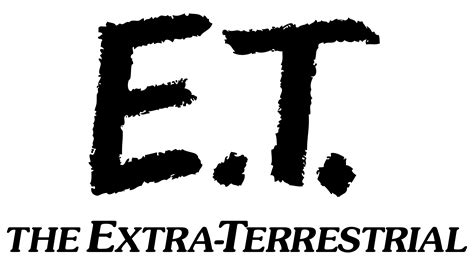
E.t. Font. Similar for e.t. part is edo sz. Making the web more beautiful, fast, and open through great typography.
Making the web more beautiful, fast, and open through great typography. Web oct 01, 2021 at 16:41. Web a webfont of the typeface used in edward tufte’s books. 2002 [] 20th anniversary logo. Similar for e.t. part is edo sz. Sign in to edit view history talk (0) 1982 [] title card.
Making the web more beautiful, fast, and open through great typography. Making the web more beautiful, fast, and open through great typography. Similar for e.t. part is edo sz. Web a webfont of the typeface used in edward tufte’s books. Sign in to edit view history talk (0) 1982 [] title card. Web oct 01, 2021 at 16:41. 2002 [] 20th anniversary logo.